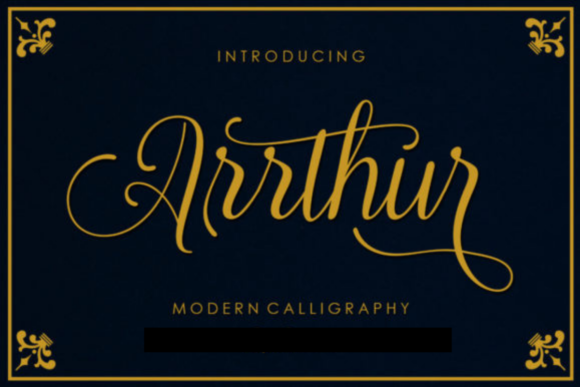
The Quest for the Perfect Script: Discovering Arrthur Font
I’ll never forget the time I was working on a wedding invitation project, and my client asked for a font that was “elegant, yet playful.” I scoured the internet, tried out countless fonts, but nothing seemed quite right. That was until I stumbled upon Arrthur Font. This delicate and stunning script with a classic look instantly won me over, and I’ve been hooked ever since.
An Honest Review of Arrthur Font
- ✨ Elegant and refined design that’s perfect for high-end projects
- 💫 Beautifully crafted to evoke a sense of nostalgia and sophistication
- 🎨 Highly versatile and can be used for a wide range of creative projects
While Arrthur Font is an excellent choice for many projects, there are a few things to keep in mind:
- ⚠️ May not be the best choice for very large or bold text, as it can lose some of its delicate charm
- 🤔 Limited availability of certain OpenType features, such as ligatures and stylistic alternates
A Practical Guide to Using Arrthur Font
The Story Behind Arrthur Font
While the origins of Arrthur Font are shrouded in mystery, it’s clear that the designer was inspired by classic calligraphy and typography. The result is a font that’s both timeless and elegant, with a unique personality that’s sure to captivate audiences.
| Font Name | Arrthur Font |
| Author | Stellar Studio |
| What is the best use for Arrthur Font? | Arrthur Font is highly versatile and can be used for a wide range of creative projects, from wedding invitations and cards to branding and advertising. |
| Is Arrthur Font suitable for body text? | While Arrthur Font is highly legible, it’s best suited for headlines, titles, and short paragraphs. For longer body text, a more traditional serif font may be a better choice. |
| Does Arrthur Font support OpenType features? | Yes, Arrthur Font supports many OpenType features, including glyphs and stylistic alternates, which can be accessed in compatible software such as Adobe Photoshop and Illustrator. |